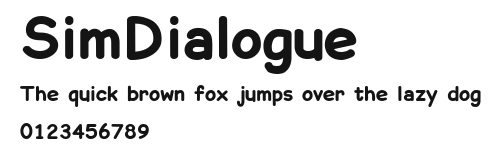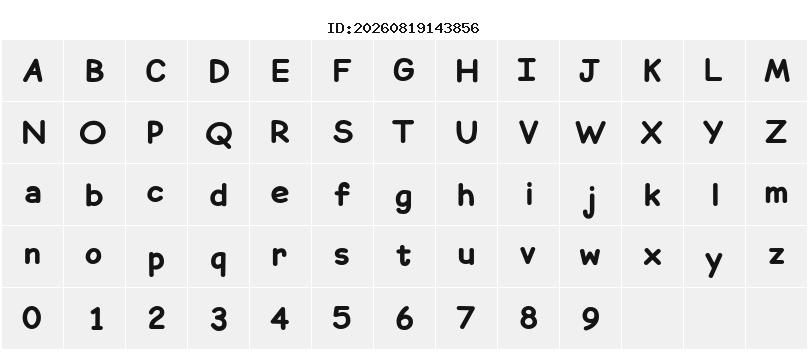
• Font Name: SimDialogue
• Designer: Ethan Dunham
About SimDialogue.ttf
SimDialogue.ttf is a modern, elegant sans-serif font designed for ultimate readability and visual harmony. Perfect for branding, headlines, web design, and print materials.